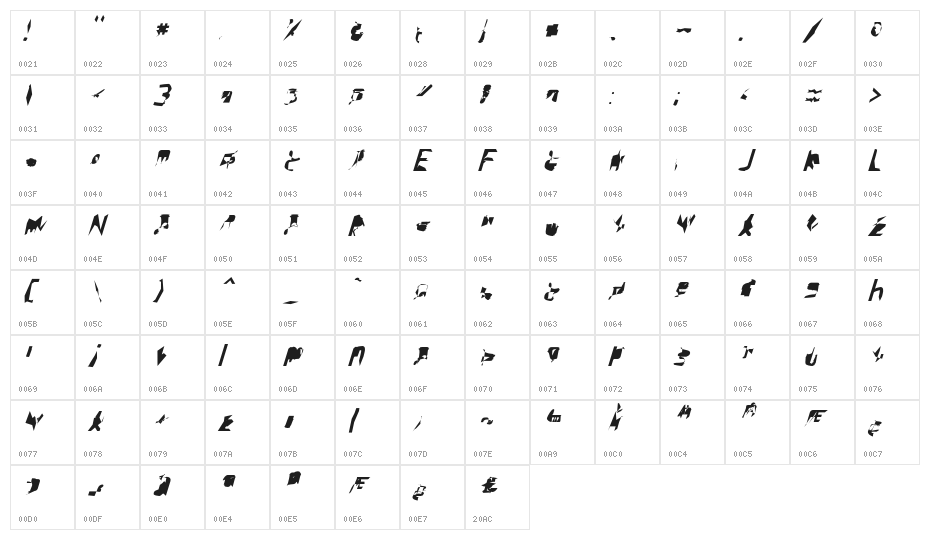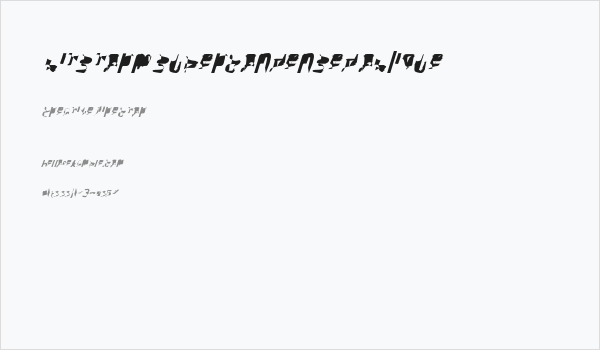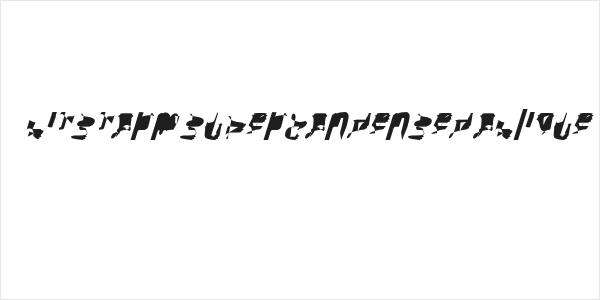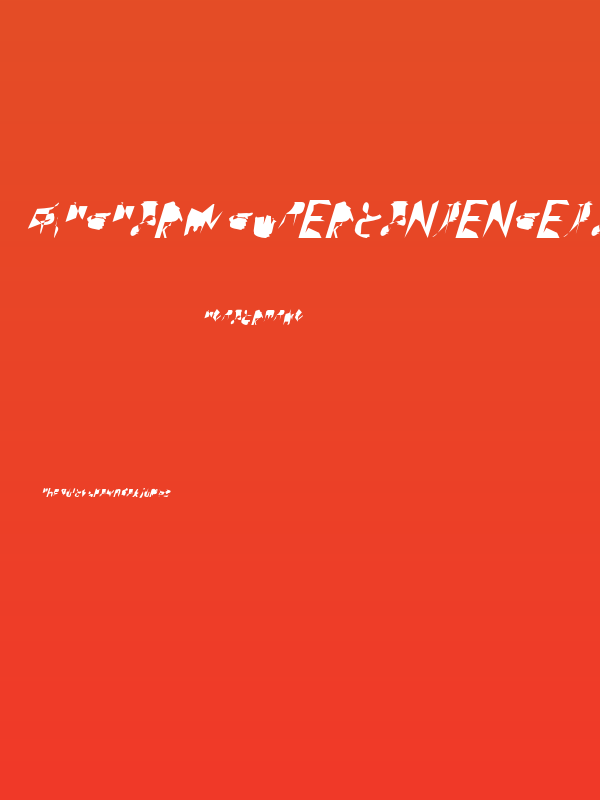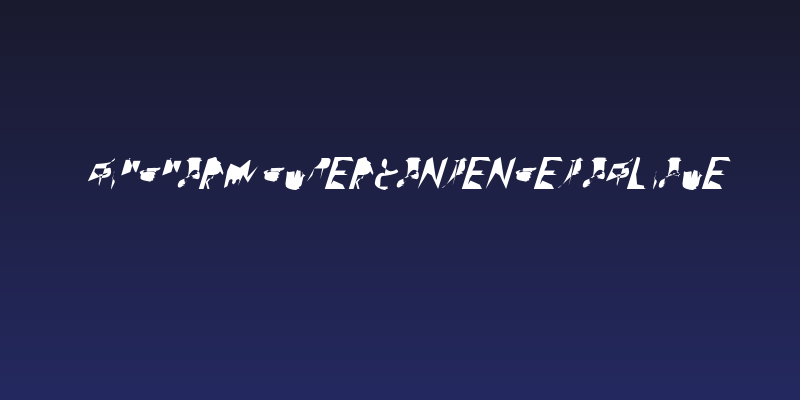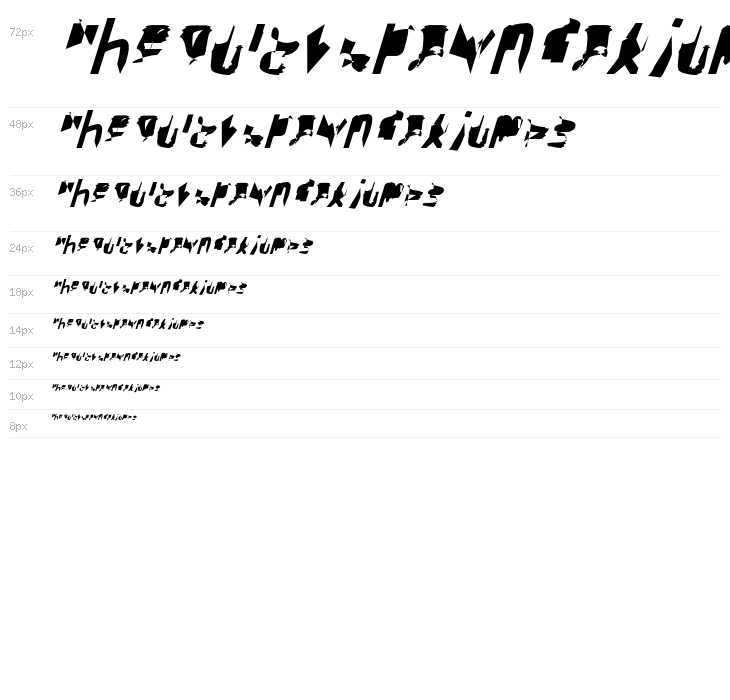
bitstorm supercondensed oblique Font
bitstorm supercondensed oblique Description
This font features a highly condensed and oblique style, characterized by sharp, angular lines and a dynamic, forward-leaning posture. The letters are tightly packed, creating a sense of urgency and movement. The strokes are bold and thick, with high contrast between the thick and thin elements, giving it a striking and impactful appearance. The overall design is modern and edgy, suitable for projects that require a bold statement. The special characters maintain the same angular and condensed style, ensuring consistency across the typeface.
| Proposed Projects | Ideal for edgy branding, modern posters, dynamic headlines, and attention-grabbing advertisements. |